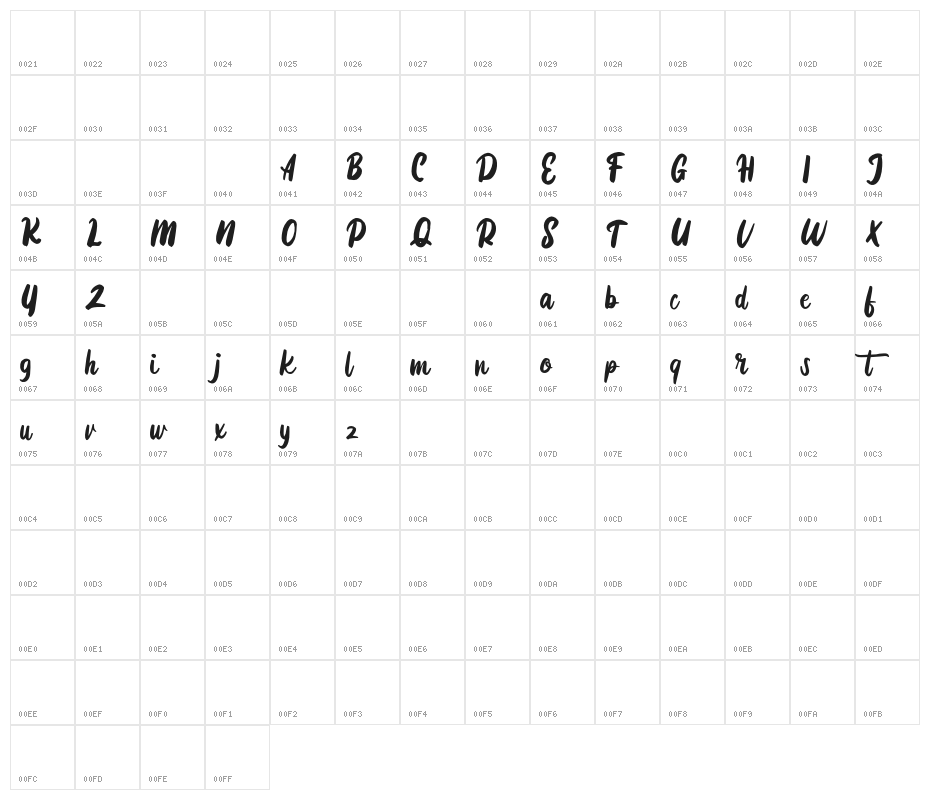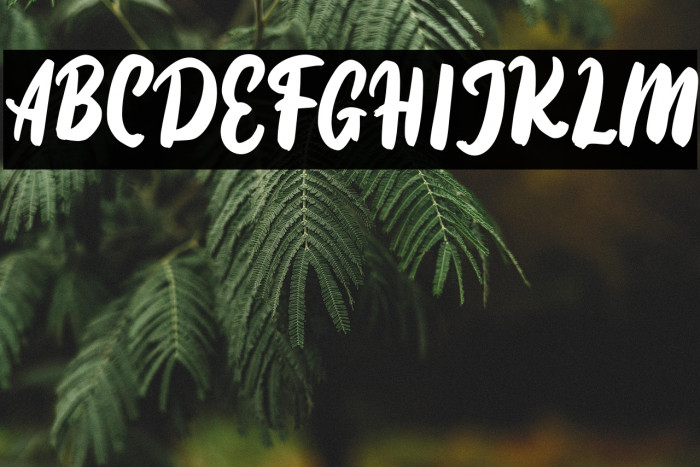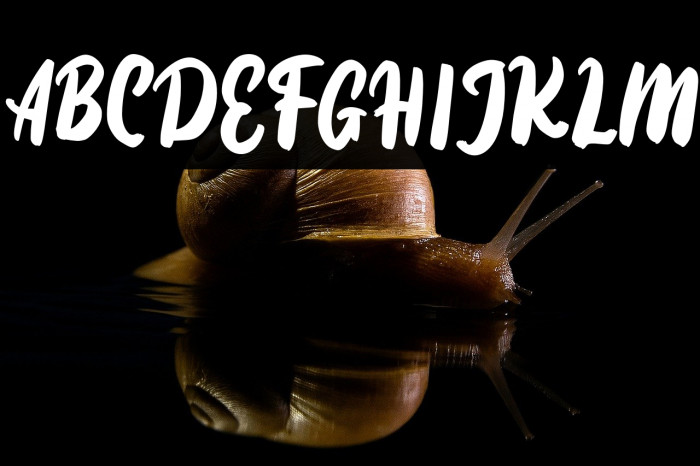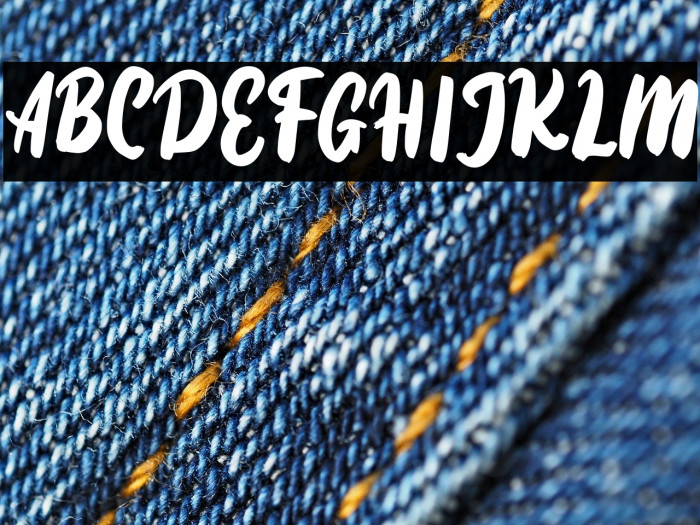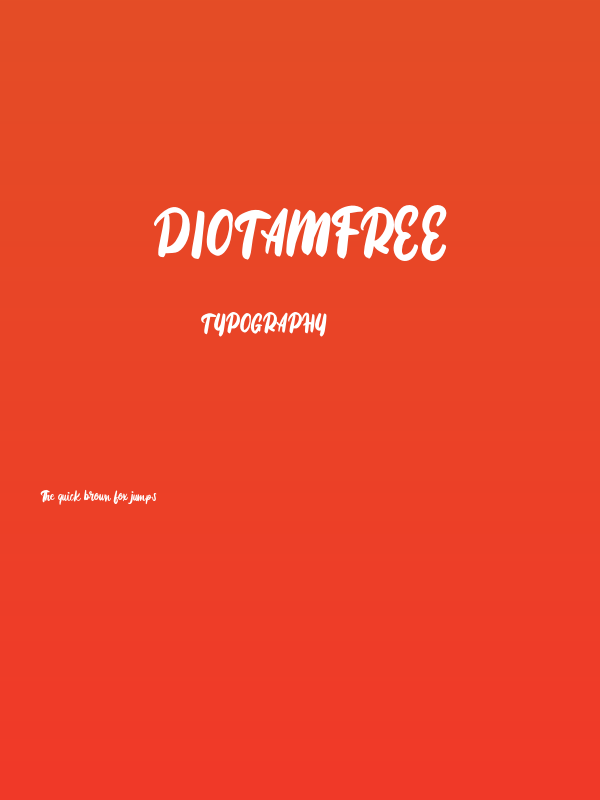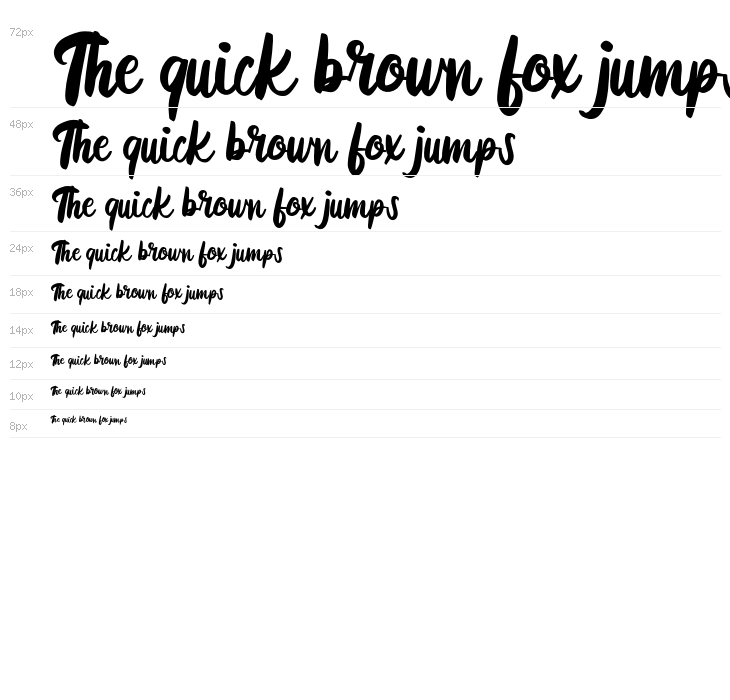
DiotamFREE Font
DiotamFREE Description
This font exhibits a bold and expressive script style, characterized by its fluid and dynamic strokes. The letters are interconnected, creating a sense of movement and continuity. The uppercase letters are slightly more formal, while the lowercase letters have a playful and casual appearance. The font's thick strokes and rounded edges give it a friendly and approachable feel. It is well-suited for creative and artistic projects, where a personal touch is desired. The overall design is modern yet retains a classic script charm, making it versatile for various applications.
| Use Case | Logos, Headlines, Decorative text |
| Proposed Projects | Ideal for branding, invitations, greeting cards, and social media graphics. |